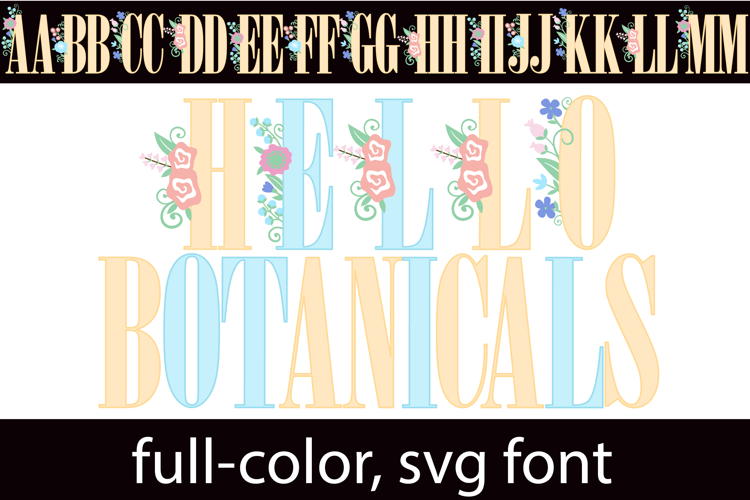
Hello Botanicals Color Font
This full-color, serif font with florals throughout in springy palette. There is an alt case of additional colors of each letter that you can access through your system's character map. For the floral flourishes type the greater than and less than brackets.